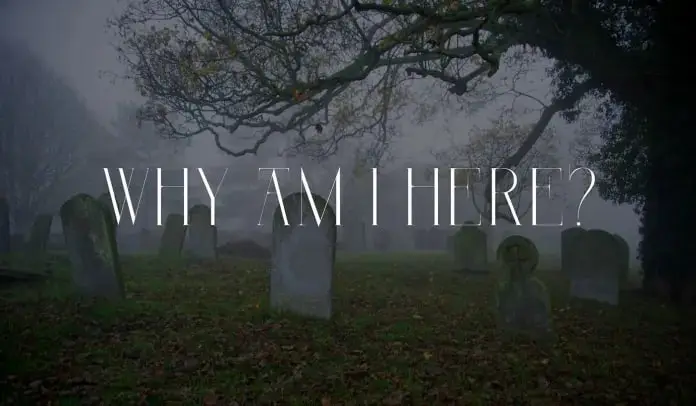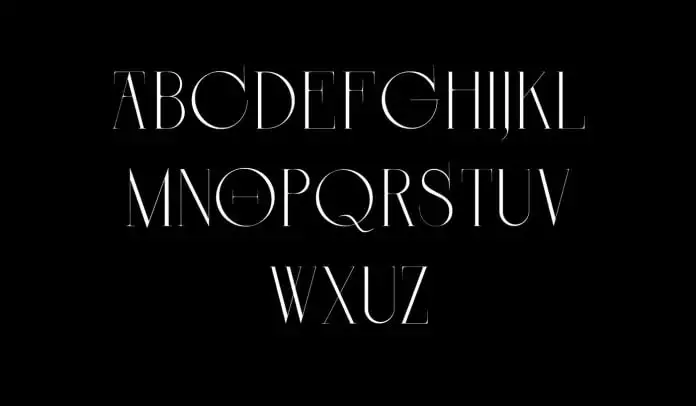
Iglets Font
The Iglets Font is a unique and stylish typeface designed to add a modern touch to your projects. With its clean lines and distinctive character shapes, this font is perfect for a variety of applications, from branding to digital media.
• Stylish ligatures for enhanced aesthetics
• Ideal for logos, branding, and marketing materials
• Great for web design and user interfaces
• Perfect for print projects like posters and flyers